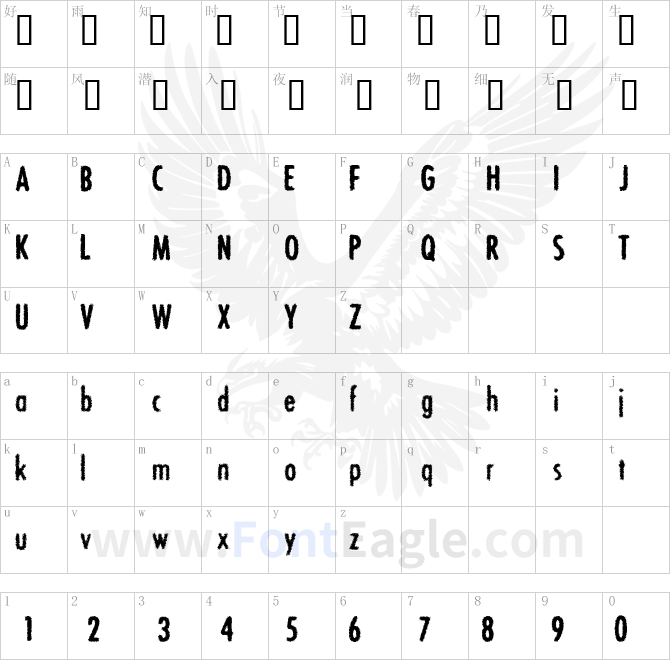
BON-ViVEUR is a great font, widely used in graphic design, single-page menu design, poster design and other fields, and is deeply loved by designers.BON-ViVEUR download.